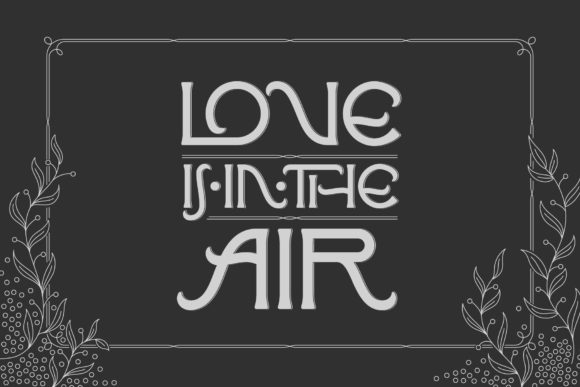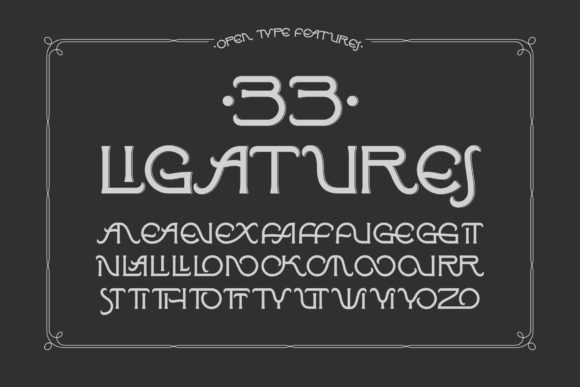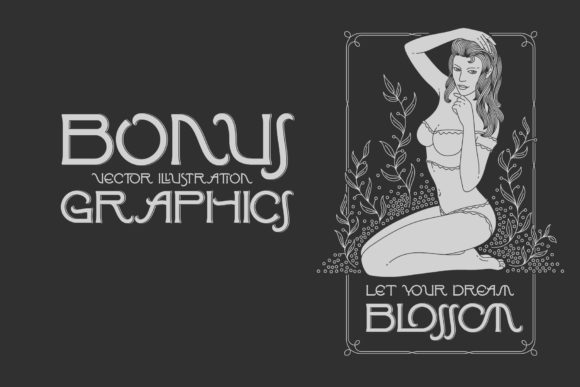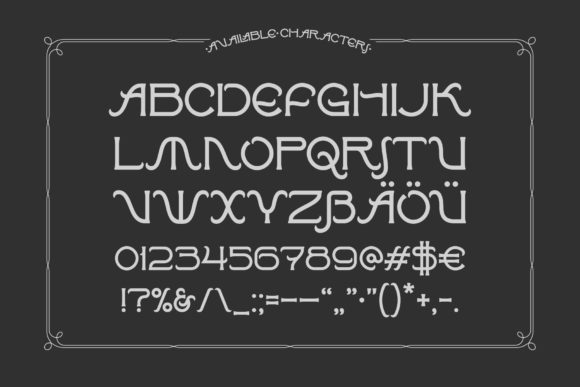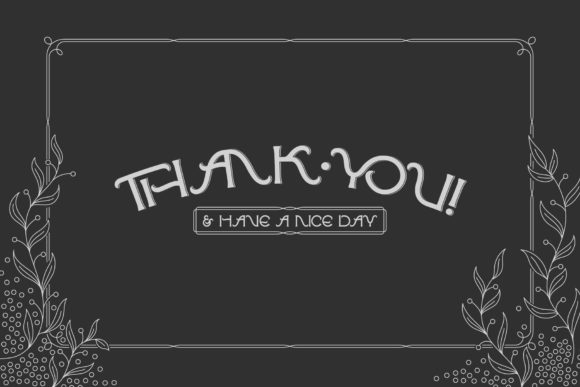
The Perfect Match: Unveiling the Allure of Affair Font
As a designer, you know that moment when you stumble upon a font that just clicks – it’s the perfect blend of style and character that makes your project truly pop. For me, that moment came when I discovered the enchanting Affair Font, a vintage-styled display font that exudes a sense of elegance and sophistication.
Crafted with love and attention to detail, the Affair Font is designed to bring a refreshing touch to your designs. Whether you’re working on a branding project, a wedding invitation, or a romantic novel, this font is sure to add a touch of whimsy and charm. Its unique character makes it a valuable asset for designers who want to stand out from the crowd and create truly memorable designs.
With its vintage charm and distinctive style, the Affair Font is a must-have for any designer looking to add a little magic to their work.
- Font Family: Affair Font is a sans-serif typeface designed for modern and elegant typography.
- Unique Characteristics: Affair Font features a unique blend of modern and classic elements, with a focus on legibility and readability.
Designer Review: Affair Font
Overall, I have mixed feelings about the Affair Font. Let’s start with the good stuff. ✨ The font has a sleek, modern design that’s perfect for creating a sophisticated look. The bold weights are particularly impressive, making it ideal for headlines and titles. ✨ The font also has a high level of customizability, allowing users to fine-tune the settings to fit their needs.
- ✨ High-quality design with a modern feel
- ✨ Excellent bold weights for headlines
- ✨ High level of customizability
However, there are some limitations to consider. ⚠️ The font may not be the best choice for body text, as it can be quite difficult to read in smaller sizes. Additionally, the font’s complexity may make it slow to load, which could be a concern for users with slower internet connections.
- ⚠️ Difficult to read in smaller sizes
- ⚠️ May be slow to load due to complexity
Overall, I would recommend the Affair Font for designers looking to create a high-end, modern look. However, it’s essential to use it judiciously and balance it with more readable fonts for body text.
For best results, use Affair Font for titles, headings, and emphasis. Pair it with a clean, sans-serif font for body text to create a visually appealing contrast. Experiment with different font sizes and colors to add depth and interest to your design.